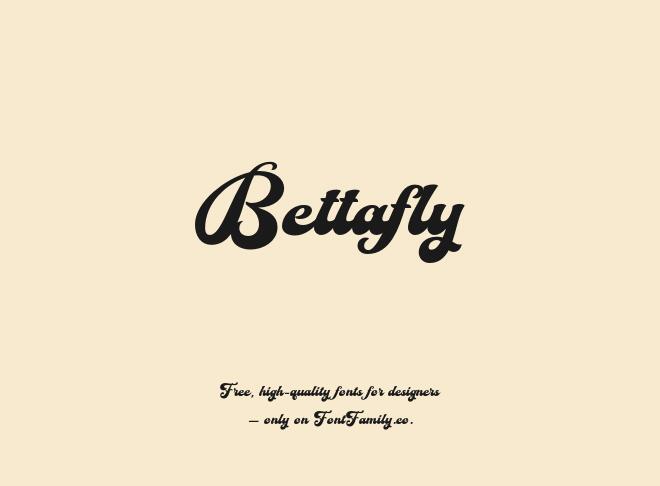
Bettafly Font
Bettafly Font, designed by Creative Tacos, is a playful and elegant script font with a unique style. It's a handwritten font that brings a touch of whimsy and refinement to any project. Its versatile nature makes it a perfect choice for branding, logos, postcards, wedding invitations, and social media posts. Bettafly Font stands out with its distinctive curves and flowing lines, offering a stylish alternative to traditional script fonts. Despite its decorative nature, it maintains excellent readability, making it a great choice for both large and small text. With its free personal use license, Bettafly Font is a valuable addition to any designer's toolkit, offering a unique blend of elegance and playfulness that can enhance any design project.